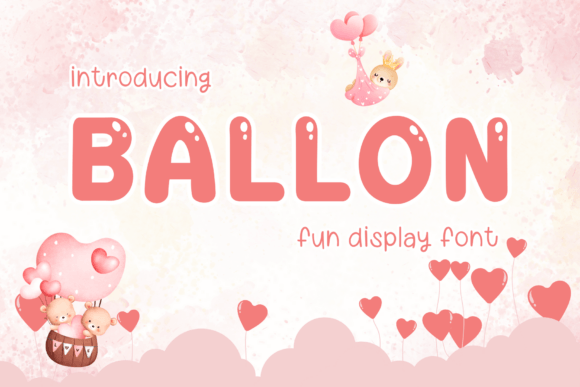
Introducing Ballon Font: The Perfect Choice for Fun and Creative Projects
Are you looking for a font that can add a touch of fun and excitement to your greeting cards, posters, craft projects, or cutting designs? Look no further than Ballon Font! This bold and playful font is perfect for anyone who wants to create eye-catching and engaging visual content.
What is Ballon Font?
Ballon Font, also known as Balloons, is a unique and creative font that features bold, inflated letters that resemble balloons. The font is designed to look like balloons of different shapes and sizes, making it perfect for creating fun and playful designs. Whether you’re creating a greeting card, poster, or craft project, Ballon Font is sure to add a pop of color and excitement to your design.
Characteristics of Ballon Font
So, what makes Ballon Font so special? Here are some of its key characteristics:
- Bold and playful: Ballon Font features bold, inflated letters that are sure to grab attention.
- Fun and creative: The font’s playful design makes it perfect for creating fun and creative designs.
- Versatile: Ballon Font can be used for a variety of projects, including greeting cards, posters, craft projects, and cutting designs.
- Easy to read: Despite its playful design, Ballon Font is easy to read and understand.
Uses of Ballon Font
So, what can you use Ballon Font for? The possibilities are endless! Here are some ideas to get you started:
- Greeting cards: Add a touch of fun and excitement to your greeting cards with Ballon Font.
- Posters: Create eye-catching posters for events, promotions, or announcements using Ballon Font.
- Craft projects: Use Ballon Font to add a personal touch to your craft projects, such as scrapbooking, DIY signs, or decorations.
- Cutting designs: Ballon Font is perfect for creating cutting designs, such as vinyl decals, stickers, or iron-on designs.
Benefits of Using Ballon Font
So, why should you use Ballon Font for your projects? Here are some benefits:
- Unique and creative: Ballon Font is a unique and creative font that can help your designs stand out.
- Versatile: Ballon Font can be used for a variety of projects and can be paired with other fonts and design elements.
- Fun and engaging: Ballon Font is sure to add a touch of fun and excitement to your designs.
Tips for Using Ballon Font
Here are some tips for using Ballon Font effectively:
- Use it sparingly: While Ballon Font is fun and playful, it can be overwhelming if used too much. Use it sparingly to add emphasis to key words or phrases.
- Pair it with other fonts: Ballon Font can be paired with other fonts and design elements to create a unique and creative design.
- Experiment with colors: Ballon Font comes in a variety of colors, so don’t be afraid to experiment and find the perfect color for your design.
- Have fun: The most important thing is to have fun and be creative with Ballon Font!
In conclusion, Ballon Font is a bold, fun, and creative font that is perfect for anyone who wants to add a touch of excitement to their designs. With its unique and playful design, Ballon Font is sure to grab attention and engage your audience. Whether you’re creating greeting cards, posters, craft projects, or cutting designs, Ballon Font is a great choice. So why not give it a try and see what amazing designs you can create?
Q: What is Ballon Font?
A: Ballon Font is a bold, fun font that features inflated letters that resemble balloons.
Q: What can I use Ballon Font for?
A: Ballon Font can be used for a variety of projects, including greeting cards, posters, craft projects, and cutting designs.
Q: Is Ballon Font easy to read?
A: Yes, despite its playful design, Ballon Font is easy to read and understand.